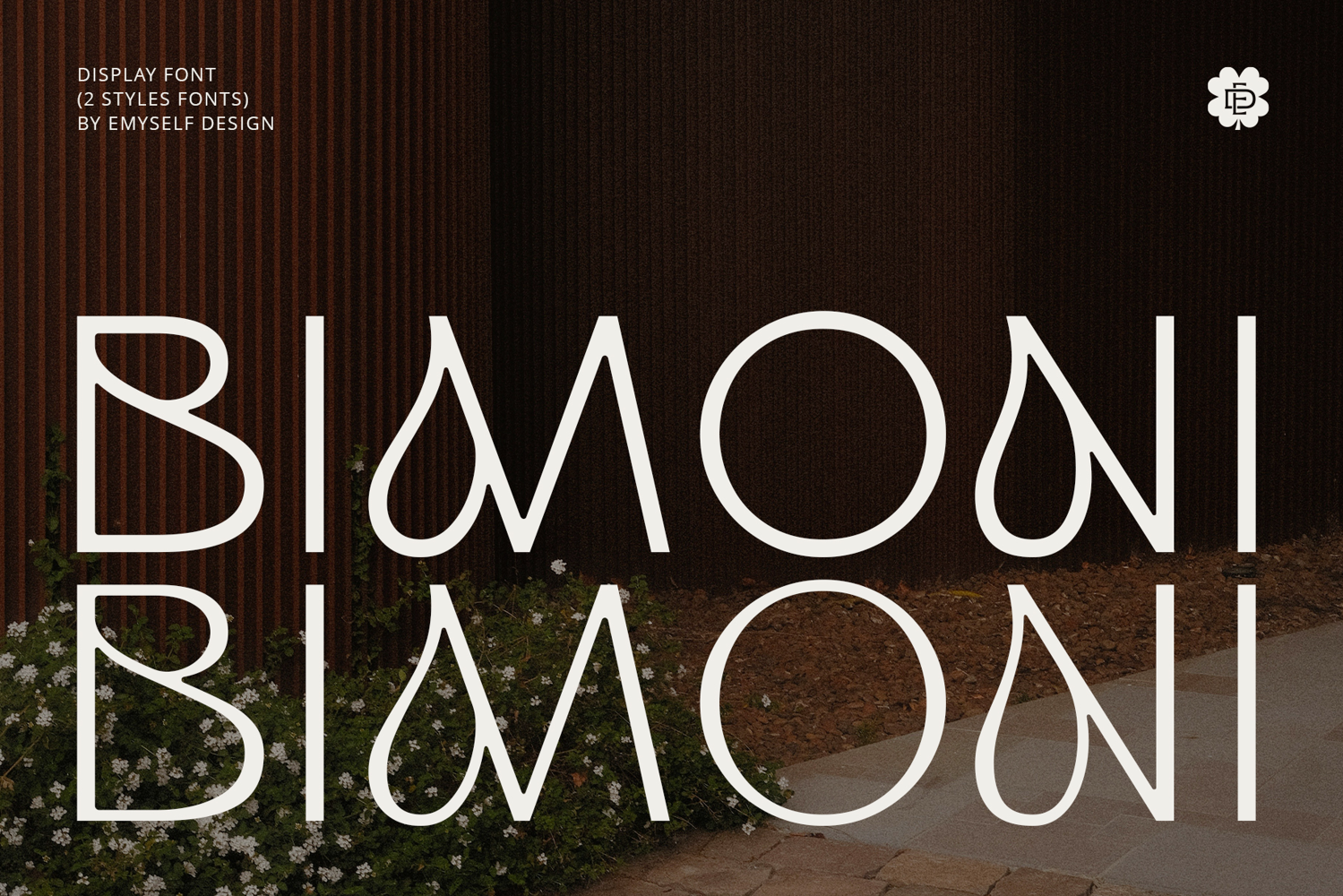
ED BImoni
ED Bimoni is a display typeface designed to make a strong and confident statement through form and contrast. Built entirely in uppercase, this font embraces simplicity, balance, and character, creating a distinctive presence that stands out in modern visual design.
ED Bimoni comes in two carefully crafted styles. ED Bimoni No. 1 features balanced stroke widths that feel clean, stable, and refined—perfect for designs that require clarity and consistency. ED Bimoni No. 2 introduces contrasting stroke weights, adding visual tension and expressive personality while maintaining an elegant structure.
Inspired by minimal forms and subtle organic curves, ED Bimoni blends contemporary design with a timeless display aesthetic. The typeface is enhanced with OpenType stylistic sets, allowing designers to explore alternate letterforms and create unique typographic compositions.
Ideal for branding, logos, posters, headlines, packaging, and editorial layouts, ED Bimoni is designed for projects that demand impact, character, and a refined visual voice. Created by Emyself Design, this font is a versatile display typeface that transforms bold ideas into memorable typography.